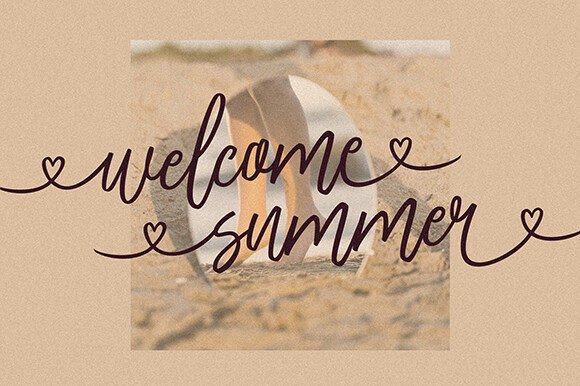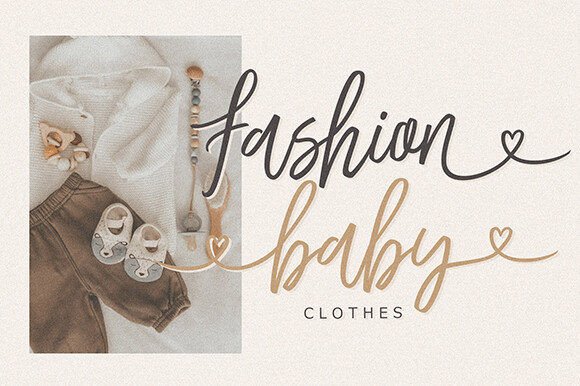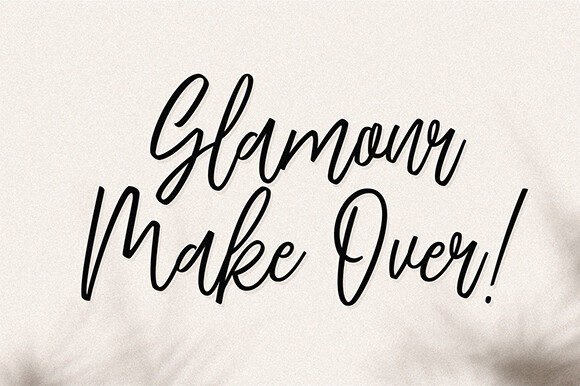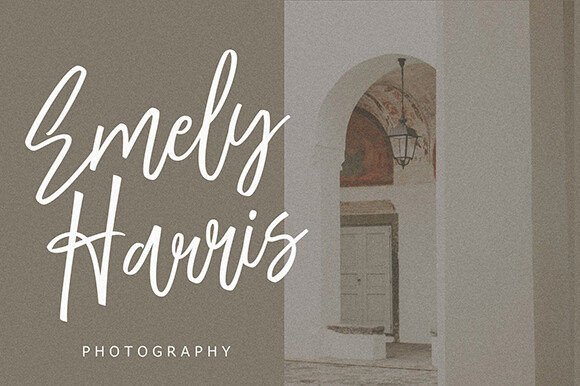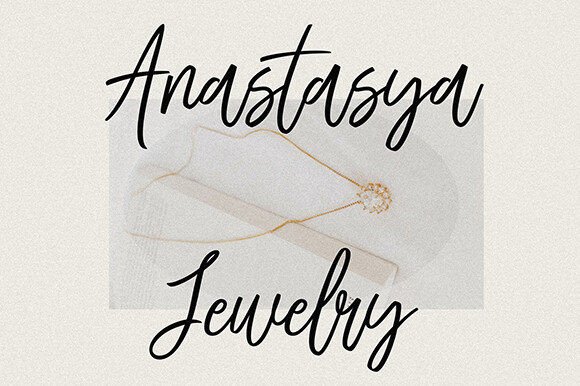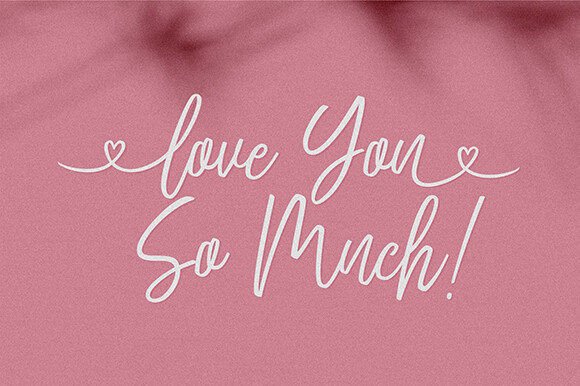
The Perfect Font for Your Dreamy Designs
There’s something magical about sitting down with a cup of coffee, a blank page, and a blank slate of creative possibilities. As a designer, you know that finding the right font can be the key to bringing your vision to life. That’s why we’re excited to introduce you to the Beautiful Summit Font, a modern calligraphy font that’s full of love and character.
This gorgeous font is more than just a pretty face – it’s a powerful tool for designers who want to add a touch of elegance and whimsy to their projects. With a full set of uppercase and lowercase letters, multilingual symbols, numerals, punctuation, and ligatures, the Beautiful Summit Font is perfect for branding, wedding invitations, and other romantic projects. And with its open type features and PUA Encoded font files, it’s easy to use with a range of software programs.
Beautiful Summit Font Key Features
- Unique Characteristics: This font features a unique blend of modern and traditional elements, with intricate details and subtle nuances that set it apart from other fonts.
Designer Review: Beautiful Summit Font
As a designer, I’ve had the chance to play with the Beautiful Summit Font, and I must say it’s a lovely addition to any design project. ✨ Here are some of its standout features:
- Beautifully crafted letterforms that evoke a sense of elegance and sophistication.
- A wide range of weights and styles, making it suitable for various design applications.
- The font is highly legible, even at small sizes, which is a must-have for any font.
- It’s perfect for creating a sense of luxury and refinement in your designs.
However, as with any font, there are some limitations to be aware of:
- It may not be suitable for bold or edgy designs, as it has a more refined and polished look.
- The font may not be as versatile as some other fonts, and may not work well with extremely condensed or stretched text.
- Some users may find the font too ornate or fancy, which may not be to everyone’s taste.
Overall, I think the Beautiful Summit Font is a great choice for designers looking to add a touch of elegance and sophistication to their projects. While it may have some limitations, it’s a solid choice for a wide range of applications. ⚠️ Just be sure to use it in contexts where its refined look will shine.
The Beautiful Summit Font is ideal for use in:
- Luxury brand marketing materials.
- High-end event promotions.
For the most effective use of the font, keep the background simple and use a limited color palette to let the font take center stage.